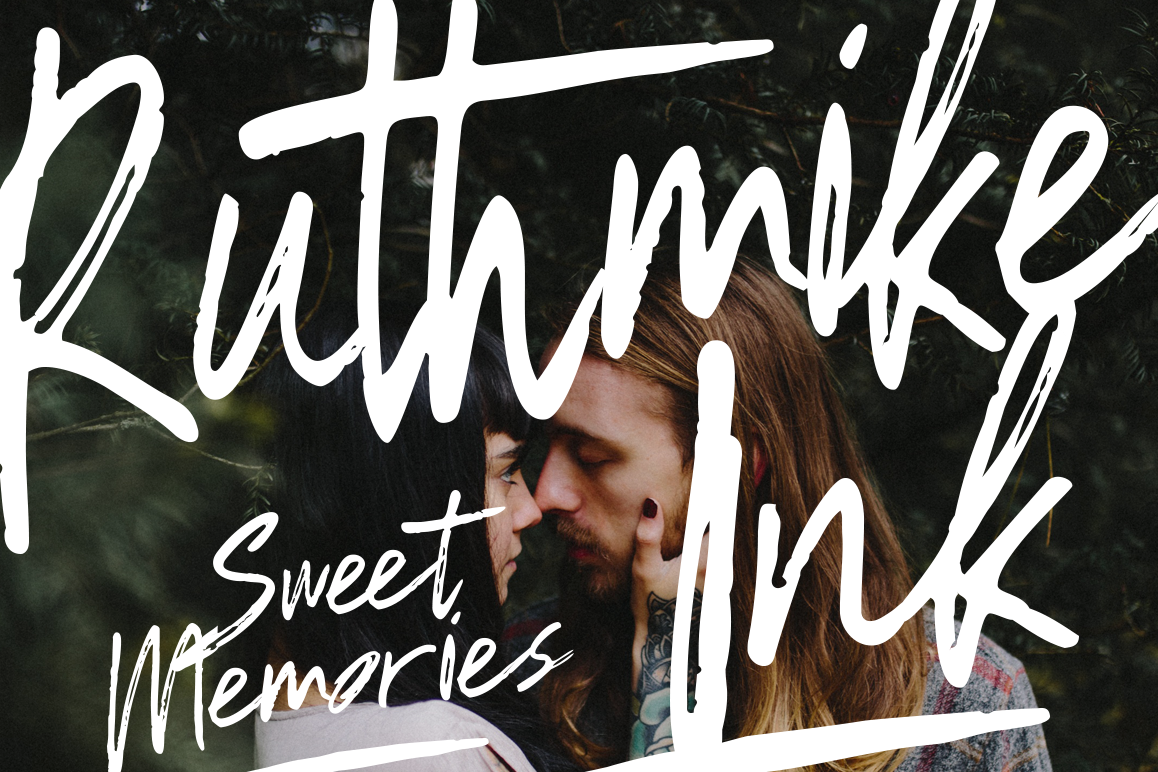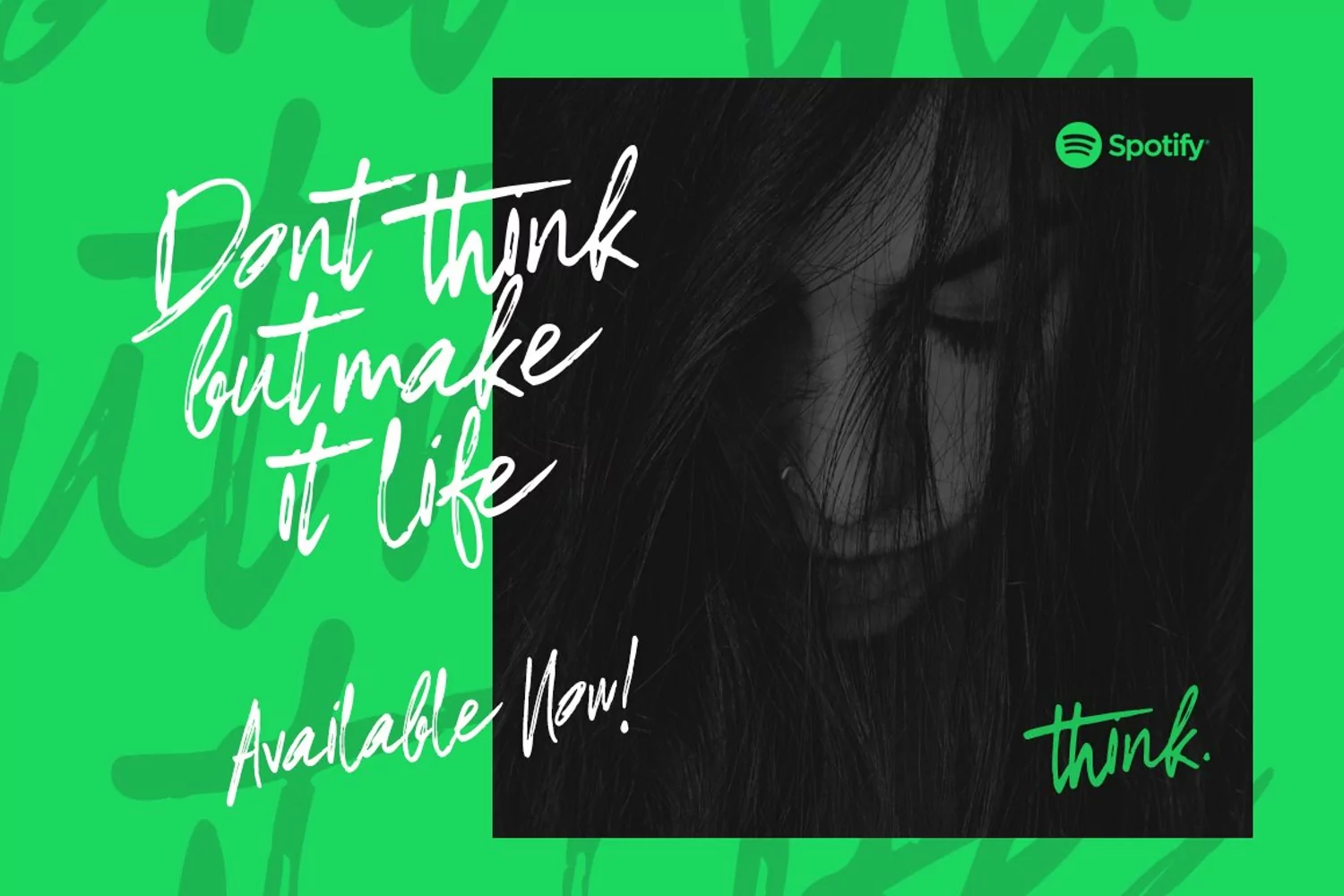
RUTHMIKE comes with quick handwritten brush style. RUTHMIKE made to give you ease in accomplishing the work of typography such as poster, label, apparel design or simply as a stylish text to any background image.RUTHMIKE comes with regular and alternates style, upper & lowercase character, set of basic punctuation and numerals. An OpenType feature available with standard ligatures, accessible in the Adobe Illustrator Glyph panel, or under in the Adobe Photoshop OpenType menu.